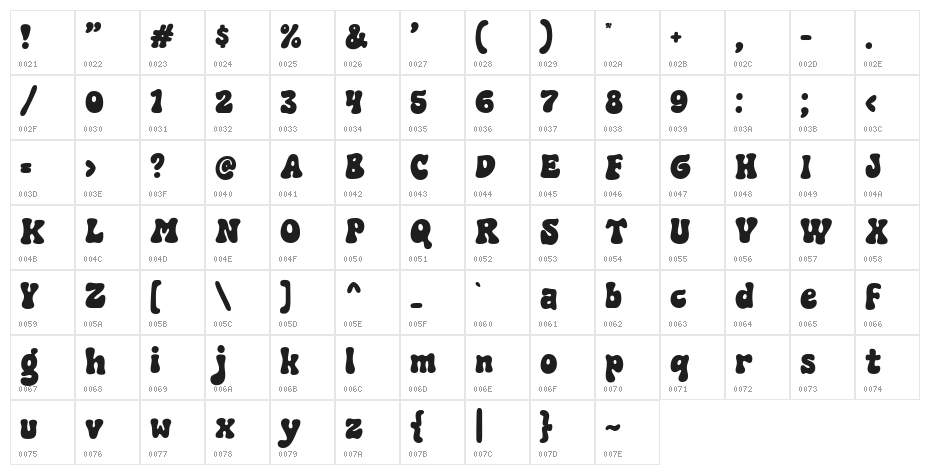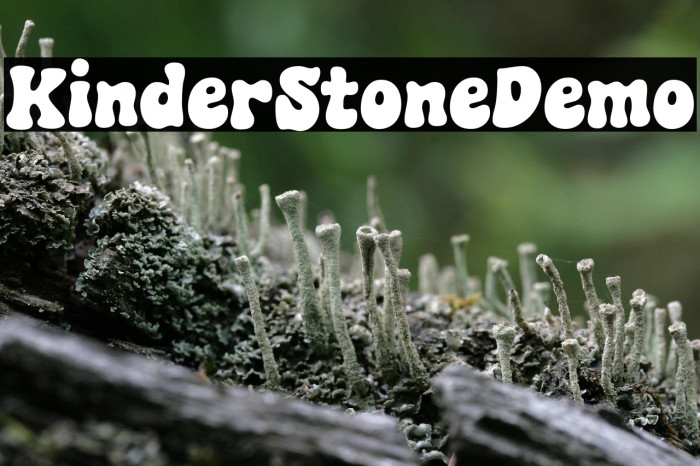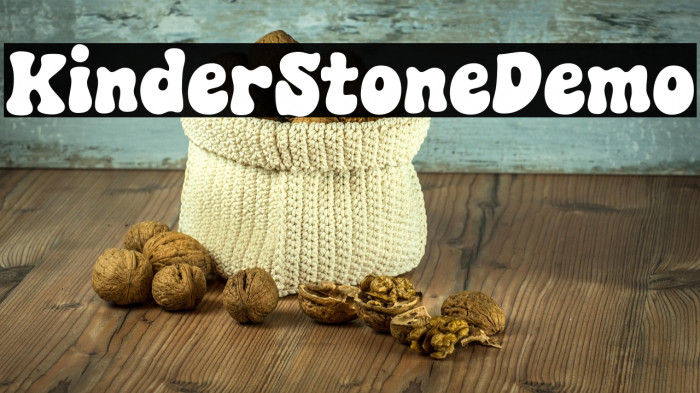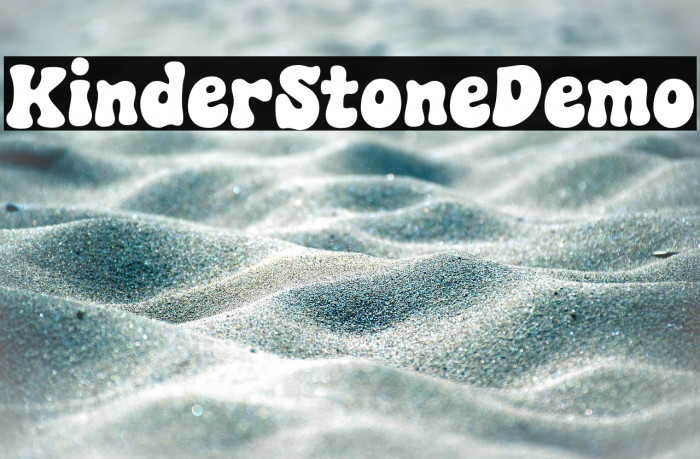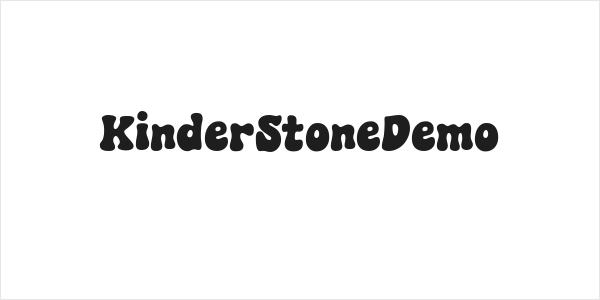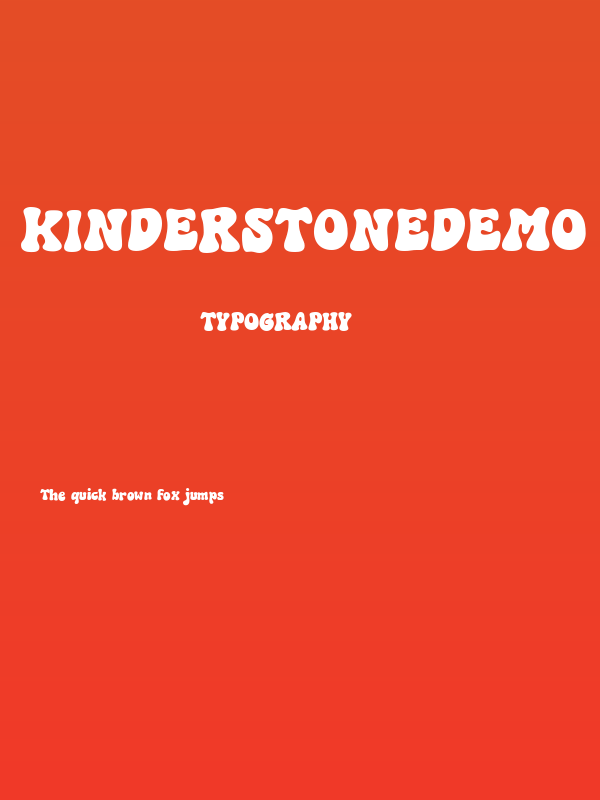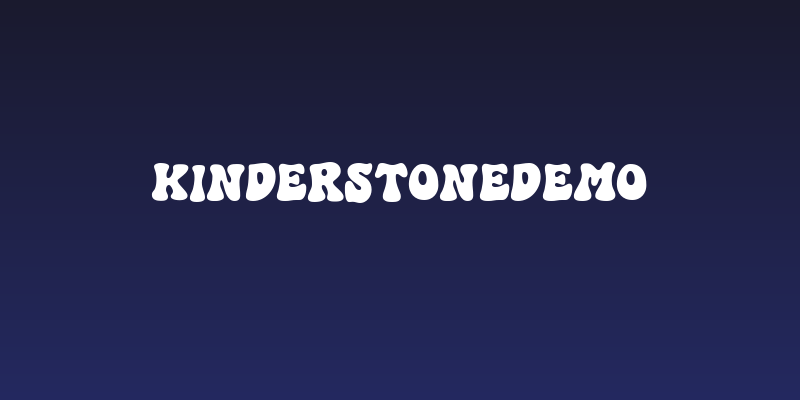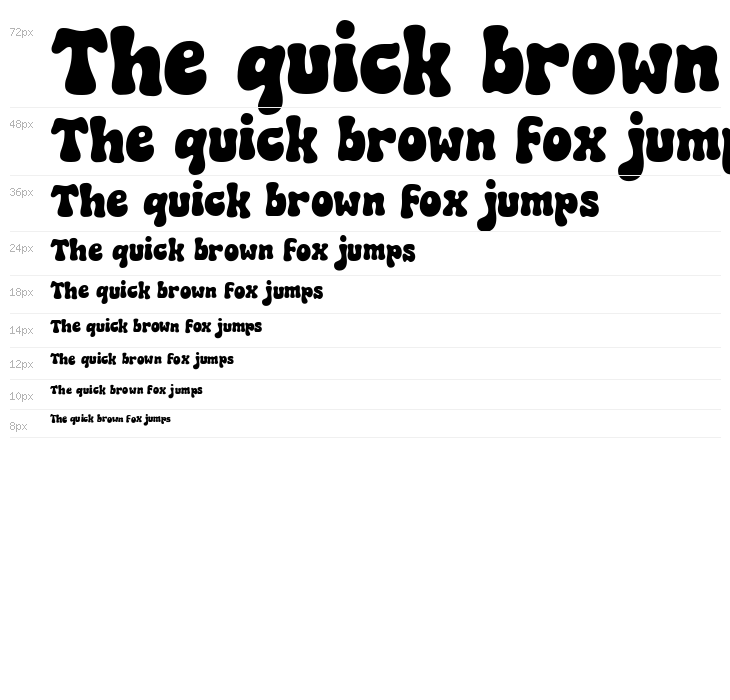
KinderStoneDemo Font
KinderStoneDemo Description
This playful and bold font features a bubbly, rounded design that exudes a sense of fun and whimsy. The characters are thick and have a soft, organic feel, reminiscent of playful shapes or cartoon-like aesthetics. The uppercase and lowercase letters maintain a consistent style, with exaggerated curves and a slightly uneven baseline that adds to its charm. The numbers and special characters are equally expressive, making them suitable for creative and informal contexts. The overall appearance is eye-catching and ideal for projects that require a touch of humor and lightheartedness.